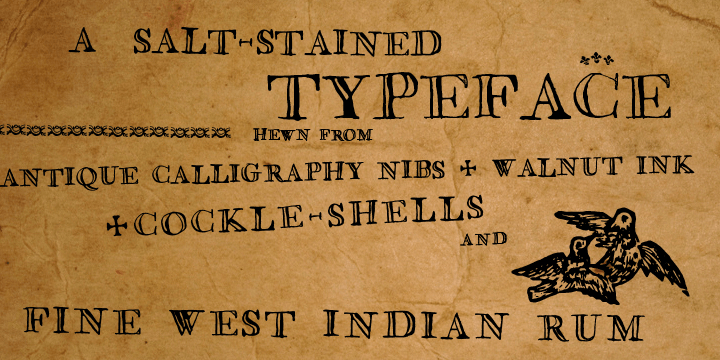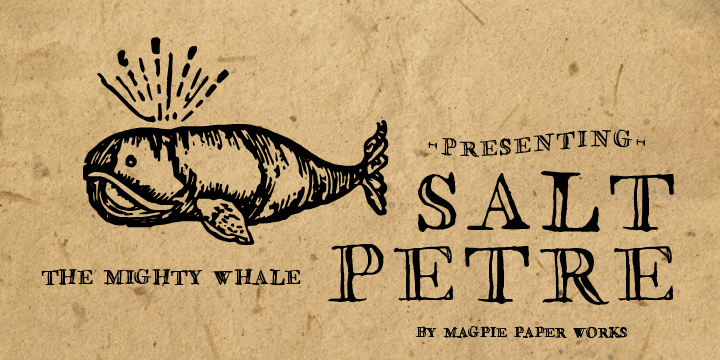
Saltpetre
Font Family by Magpie Paper Works
Inspired by late 18th century type specimens, Saltpetre is a grounded yet rustic typeface. His letters have been hand-inked with antique dip pens and playfully spaced for a charming, irregular look. In addition to a set of 26 upper case letters, the font includes a variety of period graphics, interlocking decorative borders, numerals, punctuation, currency figures and multi-lingual support.
Saltpetre is extremely versatile and excels at display, as well as specialized uses such as cartography and historical reproduction.